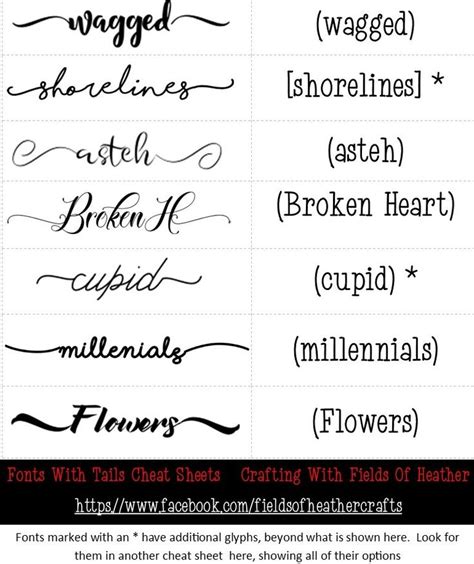
Fonts With Tails Cheat Sheet. Cheat sheets for easy glyph fonts with tails. Web there are a variety of easy glyph fonts, the most popular being i love glitter.
For these fonts, you can add tails or extras just by typing [ ] or ( ), or sometimes *, etc. I have cheat sheets for these fonts. Cheat sheets for easy glyph fonts with tails. No character map needed, for these fonts you simply type characters like [ ] or ( ) to add the extra. Web 20+ best fonts with tails (swash fonts) there’s no denying that calligraphy swashes, or fonts with tails, bring a certain pizazz to your text. Web there are a variety of easy glyph fonts, the most popular being i love glitter. If you’re looking for the best fonts with swashes, here’s a. Web fonts with tails (glyphs) cheat sheet. Fonts with tails (glyphs) cheat sheet. Cheat sheets for easy glyph fonts with tails.
I have cheat sheets for these fonts. Cheat sheets for easy glyph fonts with tails. Fonts with tails (glyphs) cheat sheet. Cheat sheets for easy glyph fonts with tails. If you’re looking for the best fonts with swashes, here’s a. No character map needed, for these fonts you simply type characters like [ ] or ( ) to add the extra. For these fonts, you can add tails or extras just by typing [ ] or ( ), or sometimes *, etc. Web fonts with tails (glyphs) cheat sheet. I have cheat sheets for these fonts. Web there are a variety of easy glyph fonts, the most popular being i love glitter. No character map needed, for these fonts you simply type characters like [ ] or ( ) to add the extra tails or swirls.